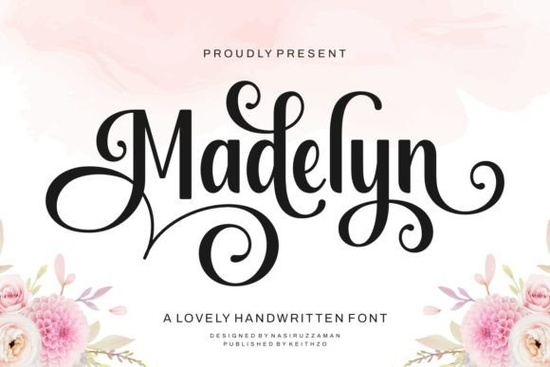
If you need a typeface that feels personal without looking messy, the Madelyn Font brings exactly that balance. It reads like a quick note from a friend warm, approachable, and deliberately imperfect in the right places. The graceful curves and gentle strokes keep things legible while still carrying that handmade quality crafters and print-on-demand sellers look for. You can drop it into invitation layouts, product labels, or simple digital prints without fighting against heavy contrast or awkward spacing.
What kind of projects actually benefit from this handwriting style?
Handwritten type works best when it matches the mood of the piece rather than trying to do everything at once. This script pair handles standalone titles beautifully, which makes it solid for birthday cards, wedding stationery, and small business branding kits. If you run an online store or sell printable planners, pairing these characters with a clean sans-serif creates a clear visual hierarchy. Buyers respond to types that feel intentionally placed, not randomly pasted. The moderate weight keeps it readable even when scaled down for sticker sheets or tote bag mockups.
Crafters often stretch script fonts too wide or squeeze them onto tiny tags where the delicate strokes disappear. Keep your sizing honest and let the negative space do some of the work. The design carries enough personality on its own that you rarely need extra decorative elements competing for attention. When you layer it over soft watercolor textures or muted linen backgrounds, the letters stay crisp instead of getting lost in busy patterns.
How does the PUA encoding and built-in ligatures affect your workflow?
Traditional scripts sometimes force you to manually swap out basic letters for connected versions, which slows down production. Because this file uses PUA encoding, your software reads the alternate shapes correctly without guessing. Every graceful transition between letters sits ready in the character map, so you can click through the available variants until the flow feels natural. That shortcut matters when you are pushing out dozens of mockups or customizing client orders under tight deadlines.
You will also notice how certain letter combinations connect smoothly while others stand apart. Trust that behavior. Forcing extra joins usually breaks the rhythm, and stepping back often gives the text a more authentic pen-and-paper look. If you ever need to adjust baseline alignment, most design programs handle the slight vertical shifts gracefully, keeping lines parallel without manual kerning headaches.
What should you verify before adding this family to your library?
Start by placing the characters on a blank canvas at sixty percent scale. Adjust tracking until the spacing feels balanced, then add color or texture only after the structure looks solid. Small adjustments now save hours of rework later.